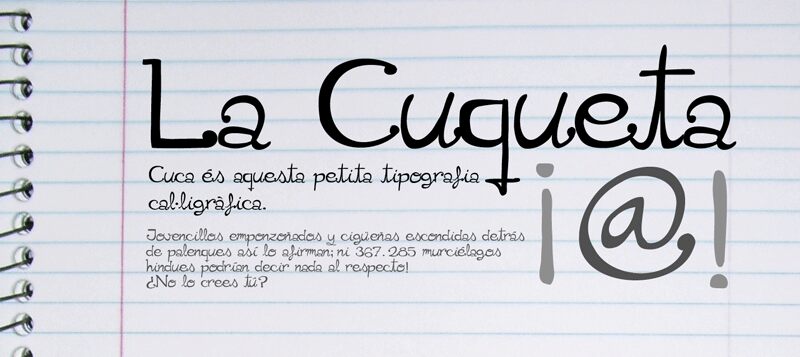
Cuqueta by Lluis Rafols is a free calligraphic script with broad, looping strokes and the easy motion of quick handwriting. Its changing stroke widths, rounded joins, and long sweeping curves keep the letters lively and distinctly signature-like.
Packaging is its strongest medium. The generous loops suit confectionery labels and cosmetics branding, while the handwritten flow also feels at home on wedding invitations and fashion editorials, where those recurring curves can echo ribbons, flourishes, or drawn details.